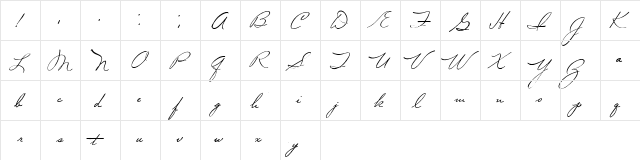
Volstead Regular
Design Context for Volstead Typeface
Volstead is a composed and adaptable typeface that performs quietly and consistently across a wide range of design contexts.